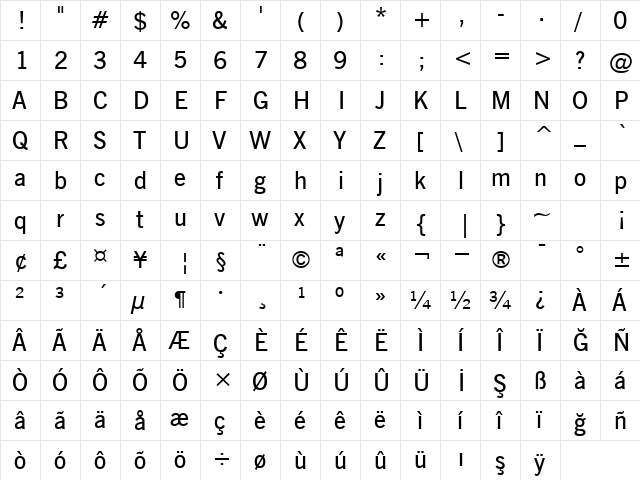
00920 Regular
Design Context for 00920 Typeface
00920 takes a measured approach to typography — its balanced proportions and neutral character make it a reliable workhorse for both digital and print work.